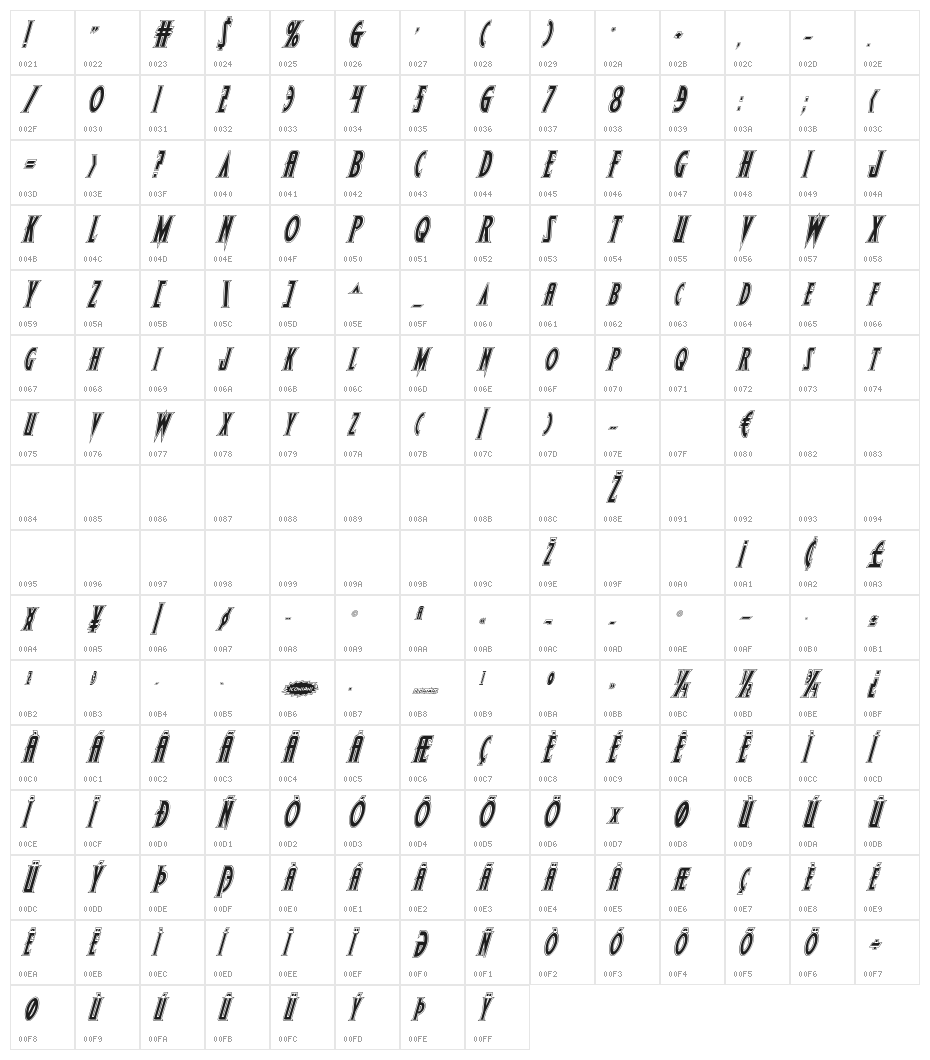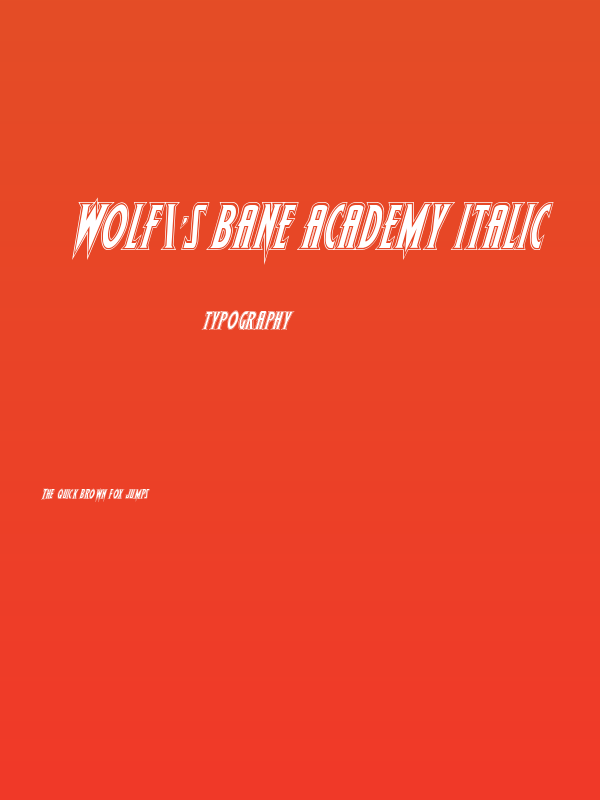
Wolf's Bane Academy Italic Font
Wolf's Bane Academy Italic Description
This font features a bold and dynamic style with sharp, angular edges and a distinct italic slant. The characters are outlined, adding a sense of depth and dimension, which enhances its striking appearance. The uppercase and lowercase letters maintain a consistent design, with exaggerated serifs and a slightly condensed form. The numbers and special characters follow the same stylistic cues, ensuring uniformity across all glyphs. This font's boldness and unique style make it ideal for attention-grabbing designs.
Proposed ProjectsPerfect for posters, logos, video game titles, and any project requiring a bold, eye-catching typeface.